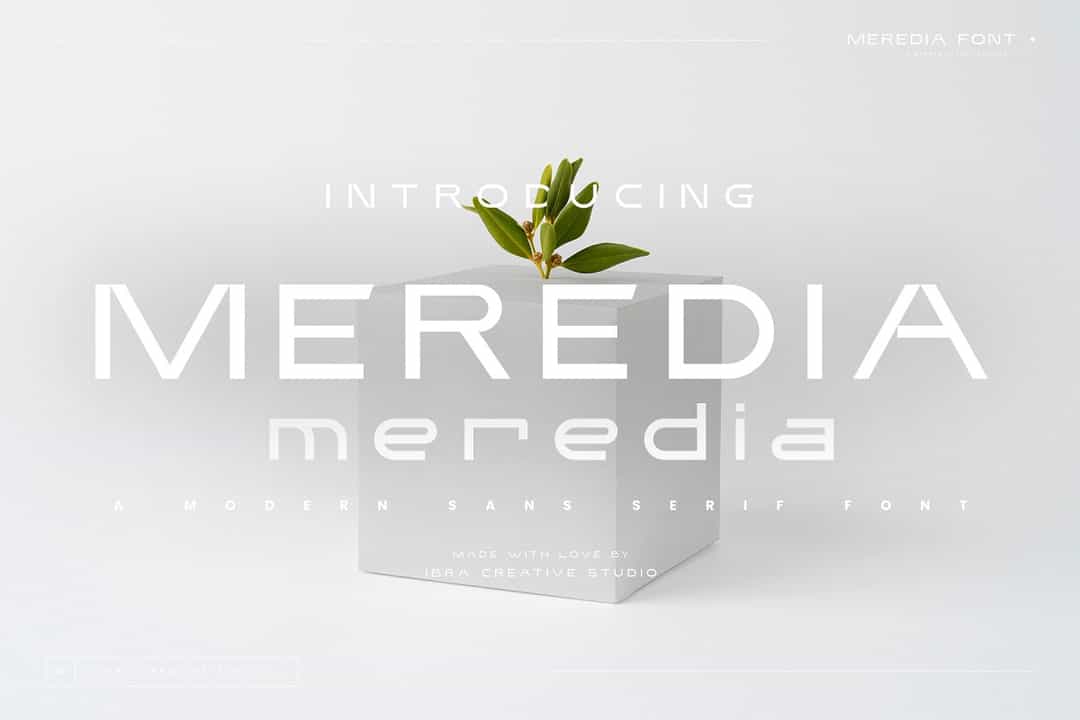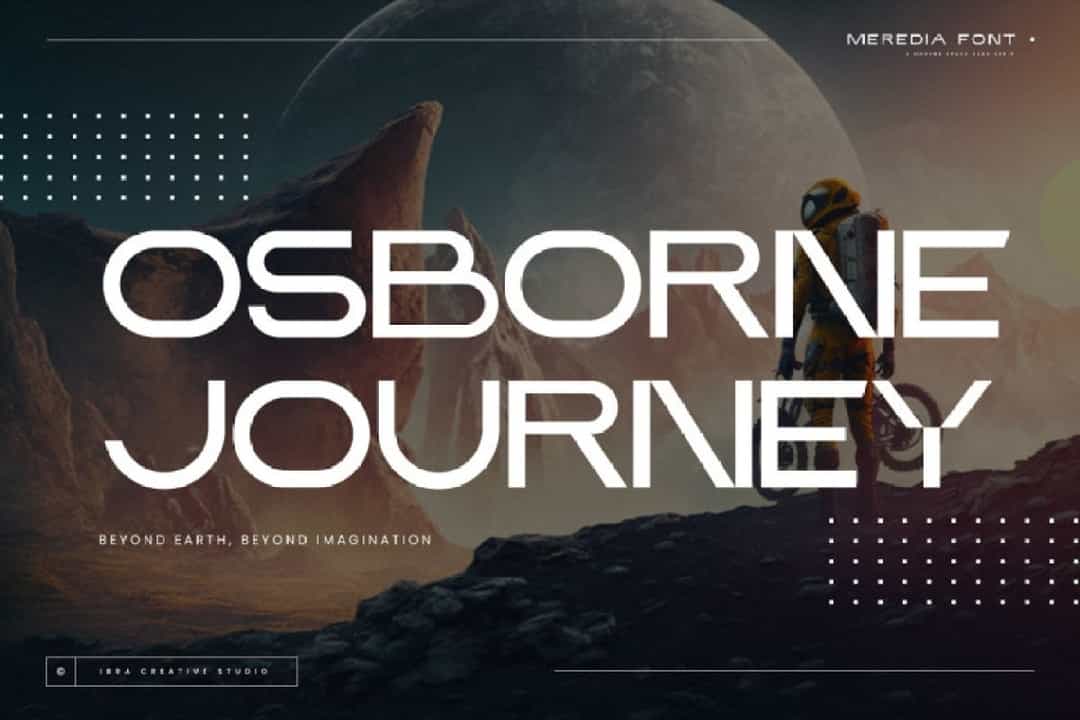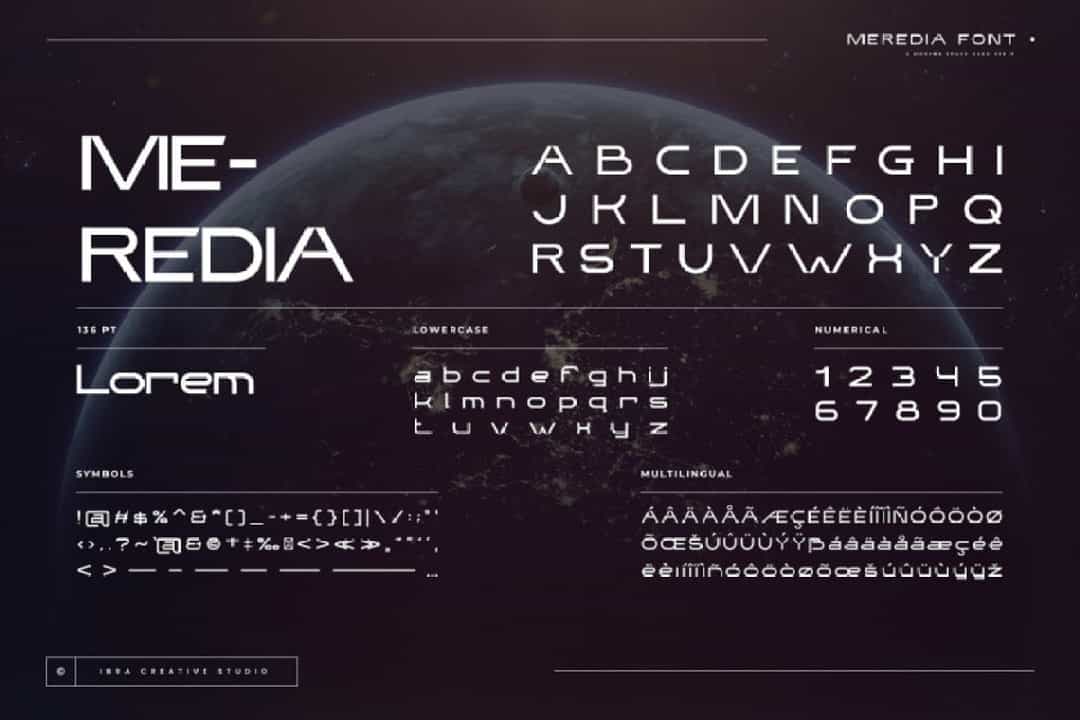
Meredia is an impressive modern spatial sans serif font that draws upon modern design principles by employing sleek lines and geometric forms in its aesthetics. The font’s versatility embodies both minimalism and sophistication making it suitable for use both digitally and on print media platforms.